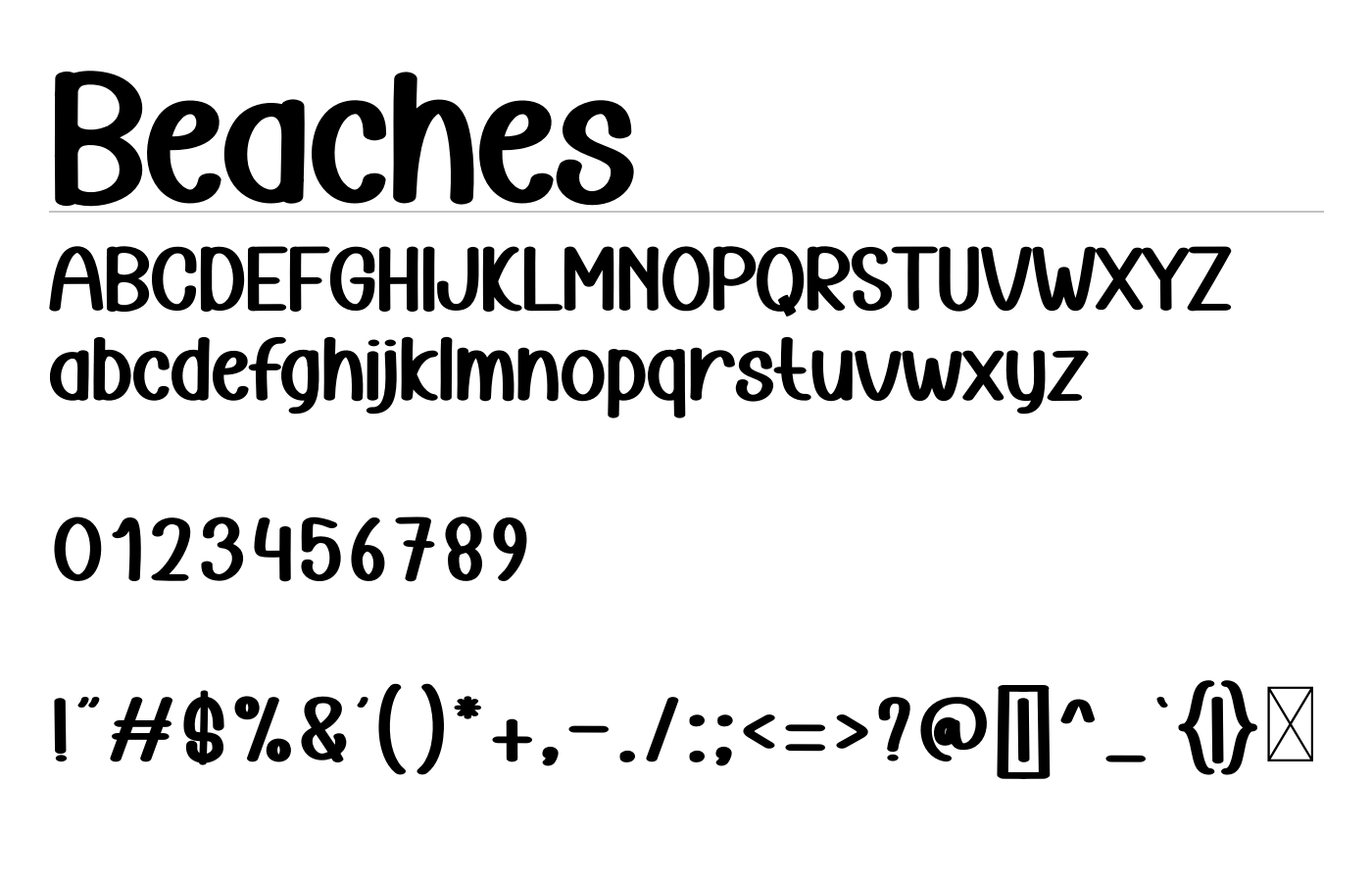
Beaches Font is a playful and informal sans serif typeface with a hand-drawn, rounded style that gives it a friendly and approachable feel. Its medium weight, consistent stroke width, and slightly irregular shapes make it ideal for casual, fun designs such as children’s books, lifestyle branding, and creative headlines where a warm, personal touch is desired. This font shines in contexts that aim to be lively and inviting, providing a charming, handcrafted look without sacrificing readability.
Beaches Font